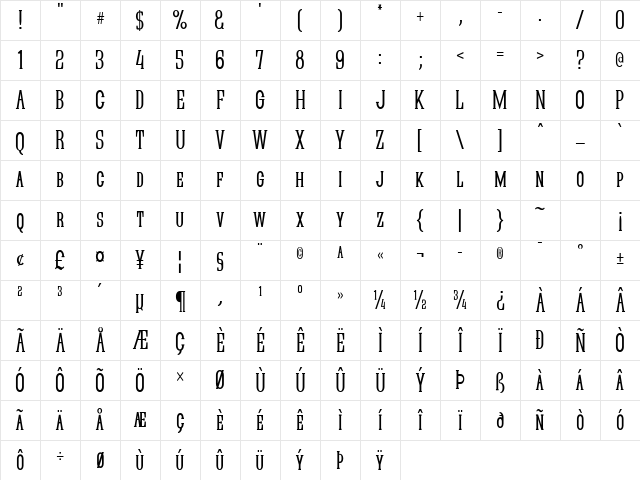
Quastic Kaps Narrow Regular Free Font
Quastic Kaps Narrow Regular
Foundry: Graham Meade,,
Design Context for Quastic Kaps Narrow
Quastic Kaps Narrow is a composed and adaptable typeface that performs quietly and consistently across a wide range of design contexts. Its narrow stance lets it pack a punch even in space-constrained designs.